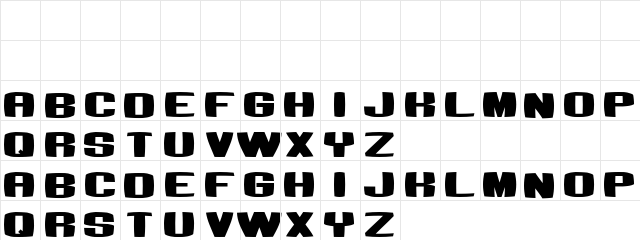
Trapezoid Regular
Design Context for Trapezoid Typeface
Trapezoid offers clean, dependable letterforms without strong stylistic allegiance, making it a practical choice for designers who need flexibility.
Pro Tip: Use Trapezoid in both headline and body roles to test its range before committing to a single application.